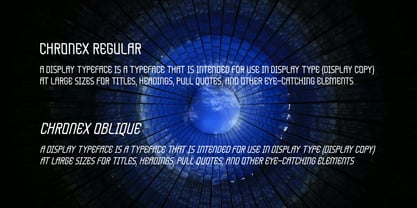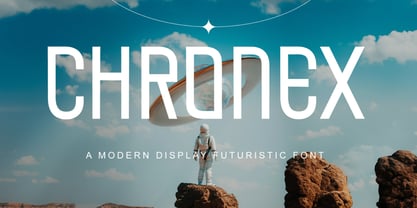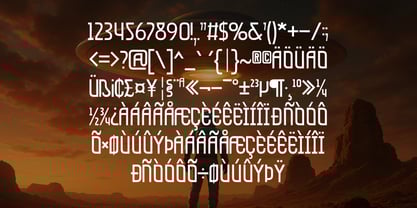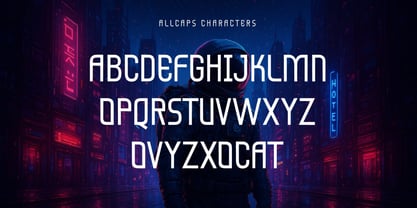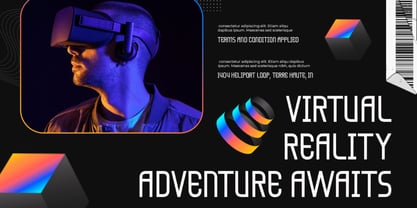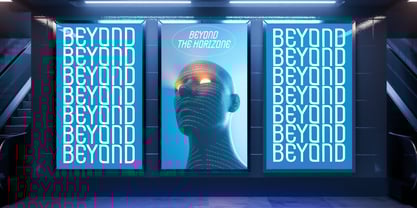
Chronex
by Salamahtype
The Chronex Font Family was designed by Aswangga Sadike and published by Salamahtype. Chronex contains 2 styles and family package options.
Chronex is a bold and sleek futuristic display font designed for modern projects that demand innovation and style. With its sharp lines, geometric curves, and clean structure, Chronex is perfect for sci-fi themes, space exploration designs, tech branding, gaming, and digital interfaces.
Whether you’re crafting a movie poster, a cutting-edge logo, or stylish editorial layouts, Chronex brings a visionary feel to every project. Its modern aesthetic makes it versatile for both print and digital use.
Features:
• Modern futuristic display style
• Uppercase all caps letters
• Numbers & punctuation
• Alternates
• Multilingual support
• Perfect for logos, posters, headlines, gaming, and tech projects
Bring the future into your designs with Chronex.